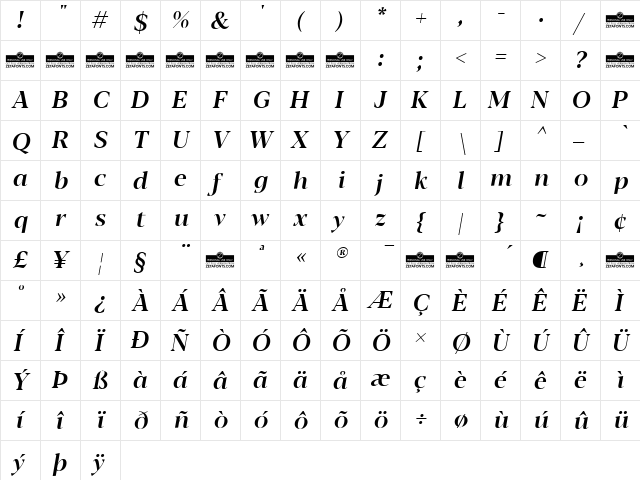
Blacker Display Medium Italic
Design Context for Blacker Display Typeface
Blacker Display brings ornamental detail and strong personality to headlines and identities, where visual impact matters more than quiet functionality. The slanted form adds forward momentum and visual energy.
Font Pairing: Pair with a clean neutral sans-serif for body copy to let Blacker Display's character lead without overwhelming the composition.
Pro Tip: Treat Blacker Display as the centrepiece of your typographic hierarchy. One strong heading set in a decorative face can carry an entire layout.